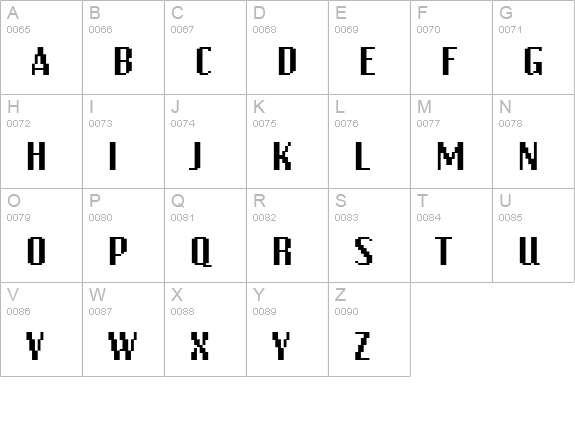
BitmapWide Regular Font Details
BitmapWide Regular is the standard, neutral variant in the BitmapWide typeface family \xE2\x80\x94 well suited to general body text, paragraphs, and standard typographic work.
BitmapWide Regular is a modern and versatile font that exudes a sleek and sophisticated aesthetic. With its clean lines and sharp edges, this font is perfect for a wide range of design projects, from branding to digital media. The uniform width of the characters gives it a distinctive look that commands attention. The best part is that BitmapWide Regular is available for free download at FontsMarket.com. This means you can easily add this stylish font to your collection without any cost. Whether you're a designer looking to elevate your projects or a business owner seeking a fresh look for your branding, BitmapWide Regular is a fantastic choice that won't break the bank. Don't miss out on the opportunity to enhance your designs with this eye-catching font. Download BitmapWide Regular for free today and start creating stunning visuals that stand out from the crowd.